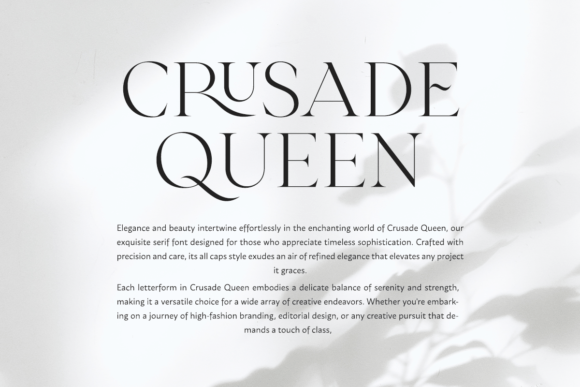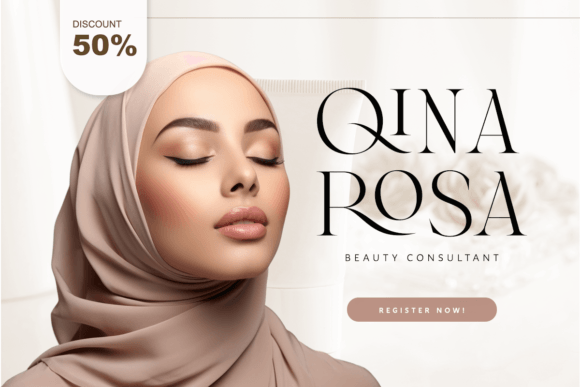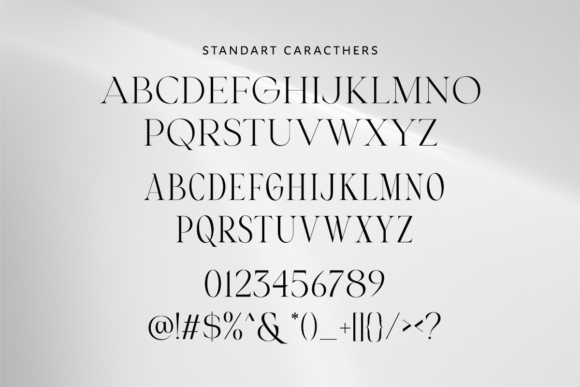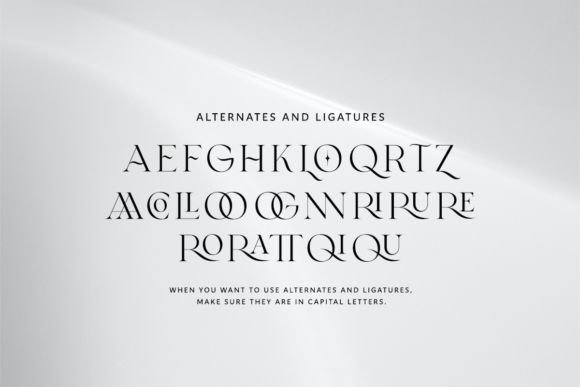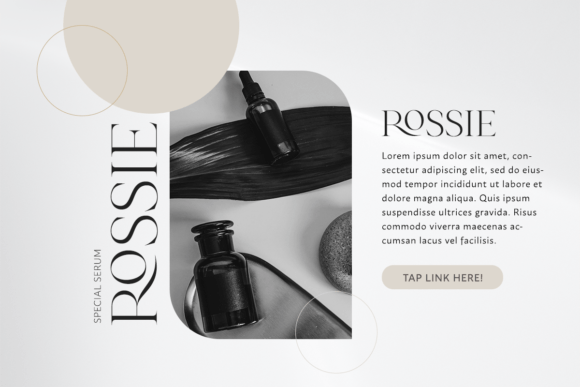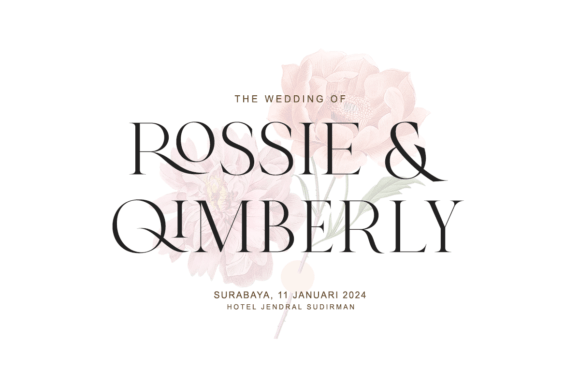
The Elegance of Crusade Queen Font: A Designer’s Dream Come True
I’ll never forget the time I was working on a fashion magazine project, and my client asked me to create a cover that exuded luxury and sophistication. I scoured the internet for the perfect font, but nothing seemed to fit the bill. That was until I stumbled upon Crusade Queen Font. ✨ This elegant, all-caps serif font has been a game-changer for my designs, and I’m excited to share its beauty with you.
As a designer, I’m always on the lookout for fonts that can elevate my projects. Here’s what I love about Crusade Queen Font:
- ✅ Timeless and luxurious design: This font embodies both beauty and grace in every character, making it perfect for high-end fashion, beauty, and magazine projects.
- ✅ Intricate details: The font’s classic appeal and attention to detail make it ideal for creating sophisticated logos, captivating magazine covers, and promotional materials.
- ✅ Elegant and versatile: Whether for personal or commercial use, Crusade Queen Font is the ultimate choice for adding a touch of class and beauty to your designs.
While Crusade Queen Font is a stunning addition to any design, there are a few quirks to keep in mind:
- ⚠️ Limited use in body text: Due to its elegant and decorative nature, Crusade Queen Font may not be the best choice for lengthy body text. It’s best used for headings, titles, or short paragraphs.
- 🤔 Requires attention to spacing: As with any serif font, it’s essential to pay attention to spacing and kerning to ensure the text looks polished and refined.
A Practical Guide: Using Crusade Queen Font in Your Designs
The Story Behind Crusade Queen Font
Legend has it that Crusade Queen Font was inspired by the elegant calligraphy of medieval manuscripts. The font’s designer, a typography enthusiast, sought to create a font that would evoke the luxury and sophistication of a bygone era. With its intricate details and classic appeal, Crusade Queen Font is a testament to the power of timeless design.
| Font Name | Crusade Queen Font |
| Author | Dzikrulauliaart |
| Q: What is Crusade Queen Font best used for? | A: Crusade Queen Font is best used for high-end fashion, beauty, and magazine projects, such as logos, magazine covers, and promotional materials. |
| Q: Is Crusade Queen Font available in different weights or styles? | A: While Crusade Queen Font is an elegant and versatile font, it is primarily available in a single weight. However, you can experiment with different sizes, colors, and styling to achieve the desired effect. |